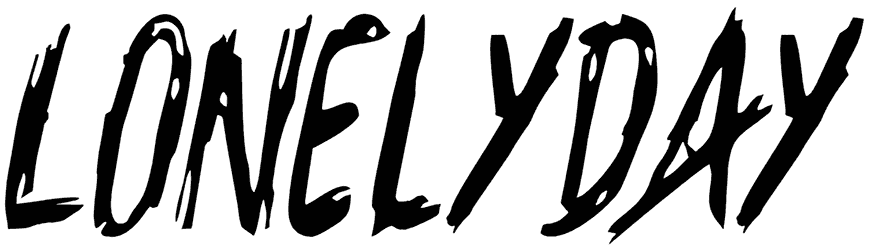
Lonelyday Font
If establishing a vibe of dynamic, dread, and eerie is your first preference in designing graphic content, an all-caps horror font such as Lonelyday would help you to achieve this goal. It can increase the quality of your logos, branding, merchandise, magazines, or headlines. It would be best to neglect the lack of numbers and pick up this lovely brush font.